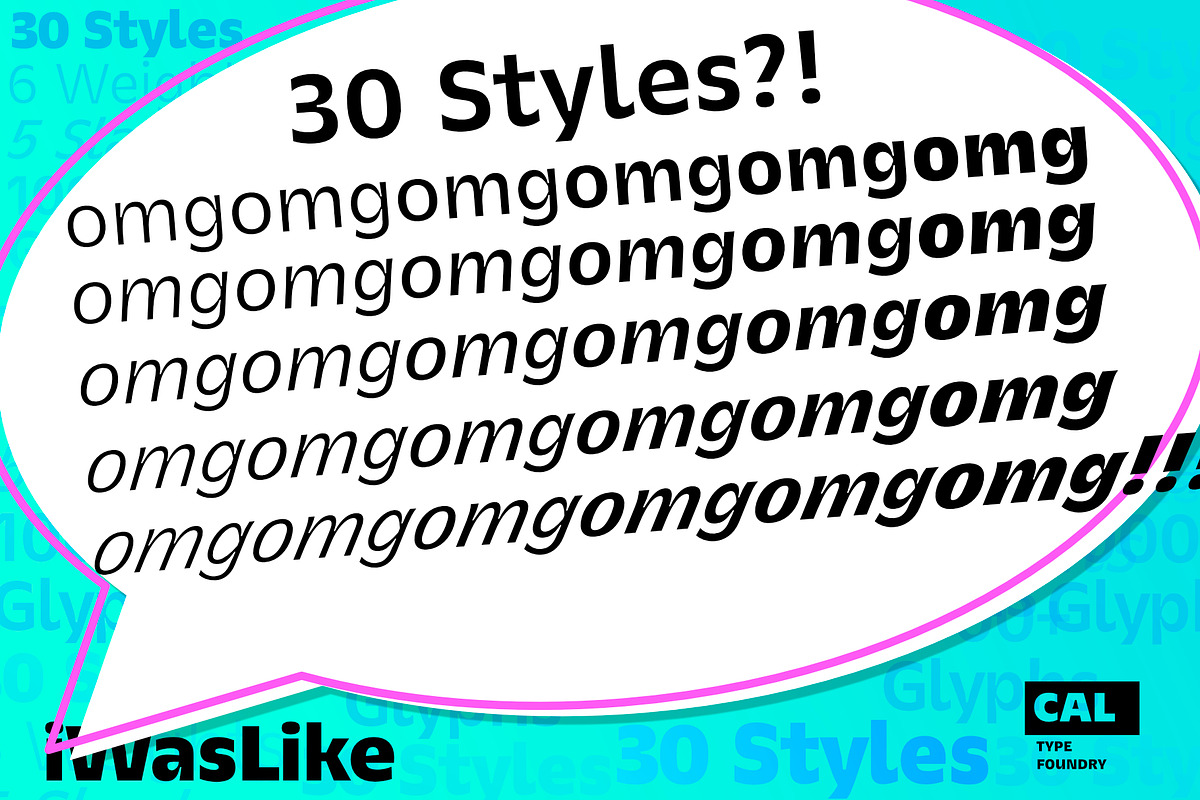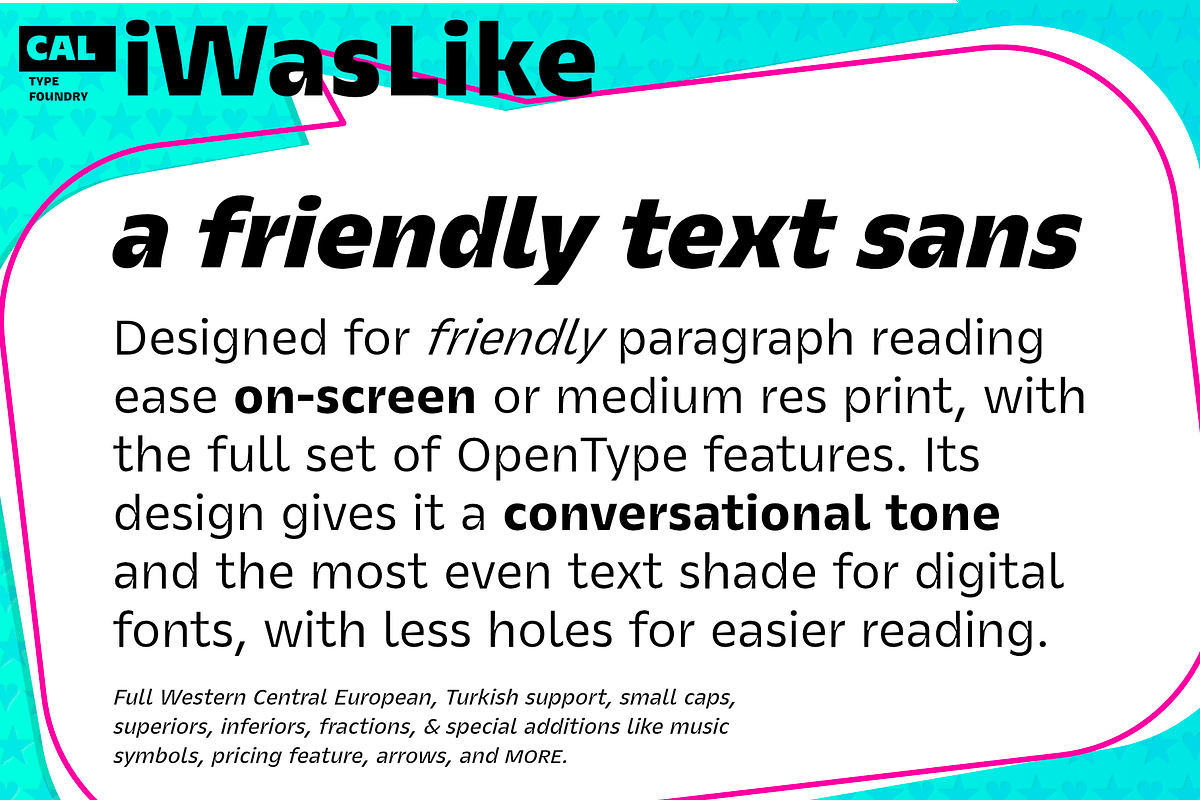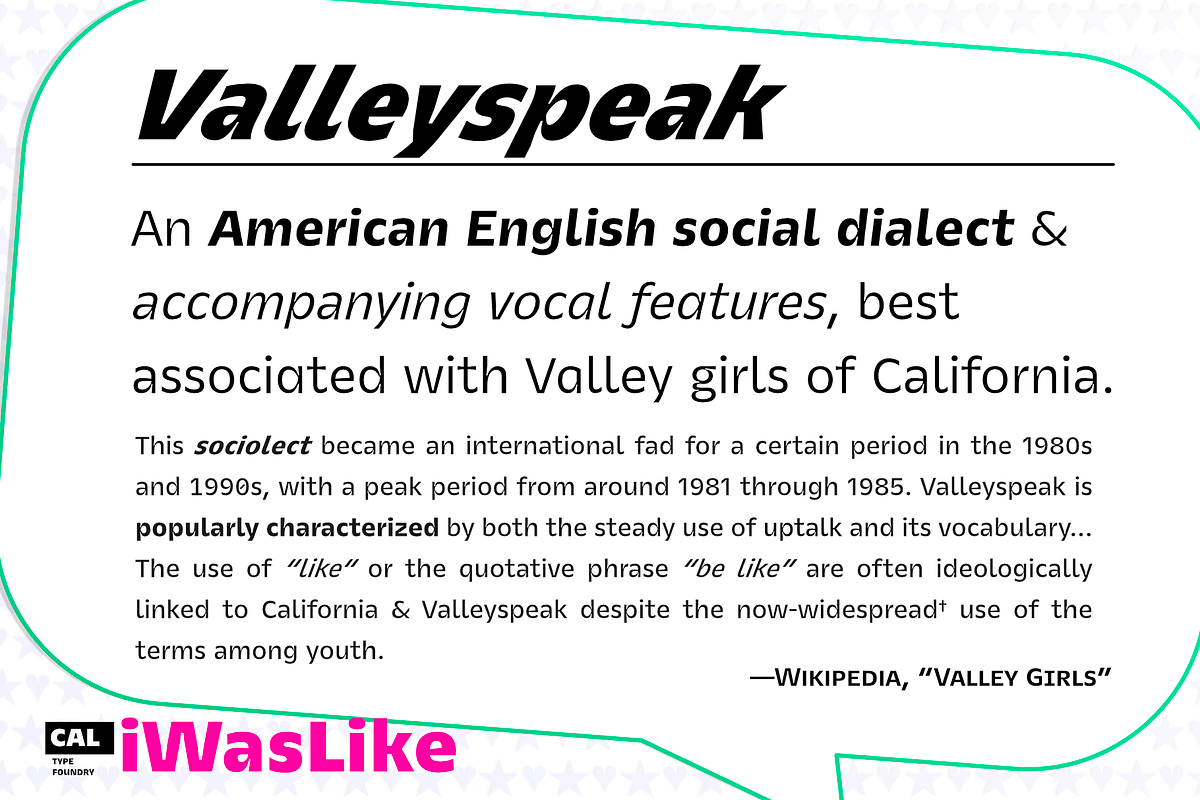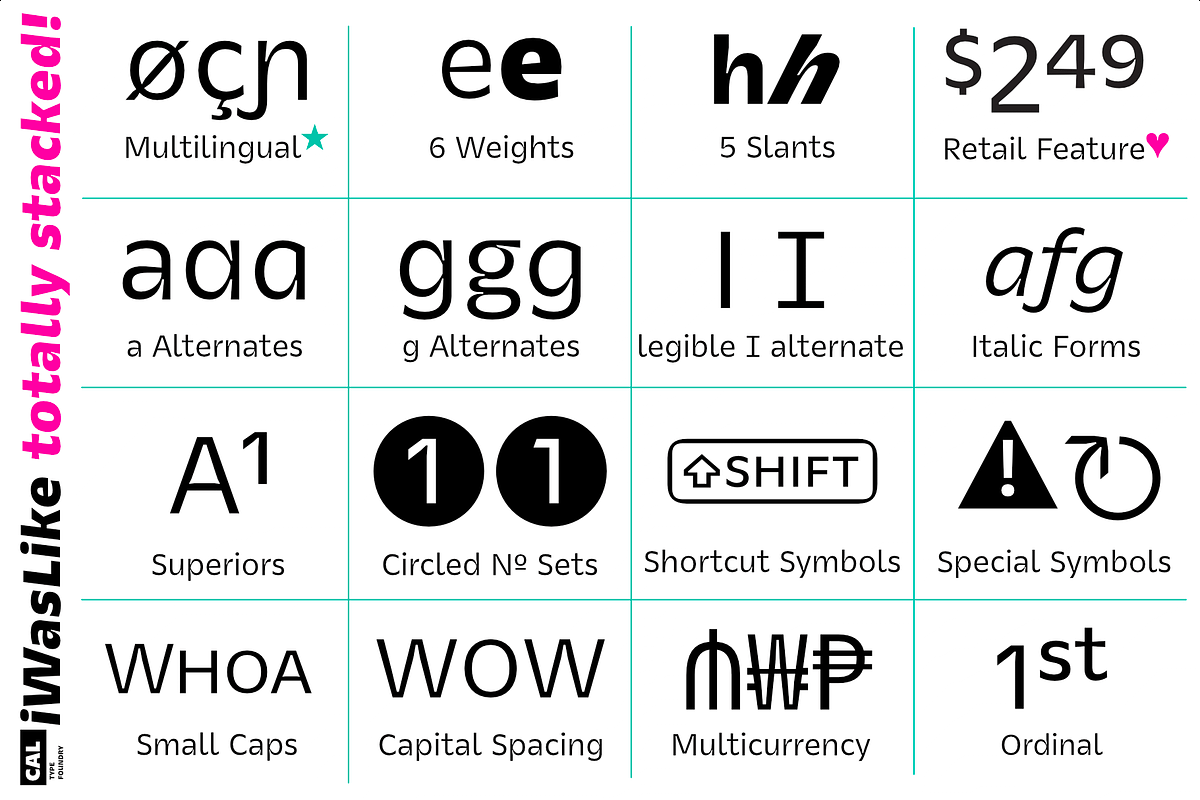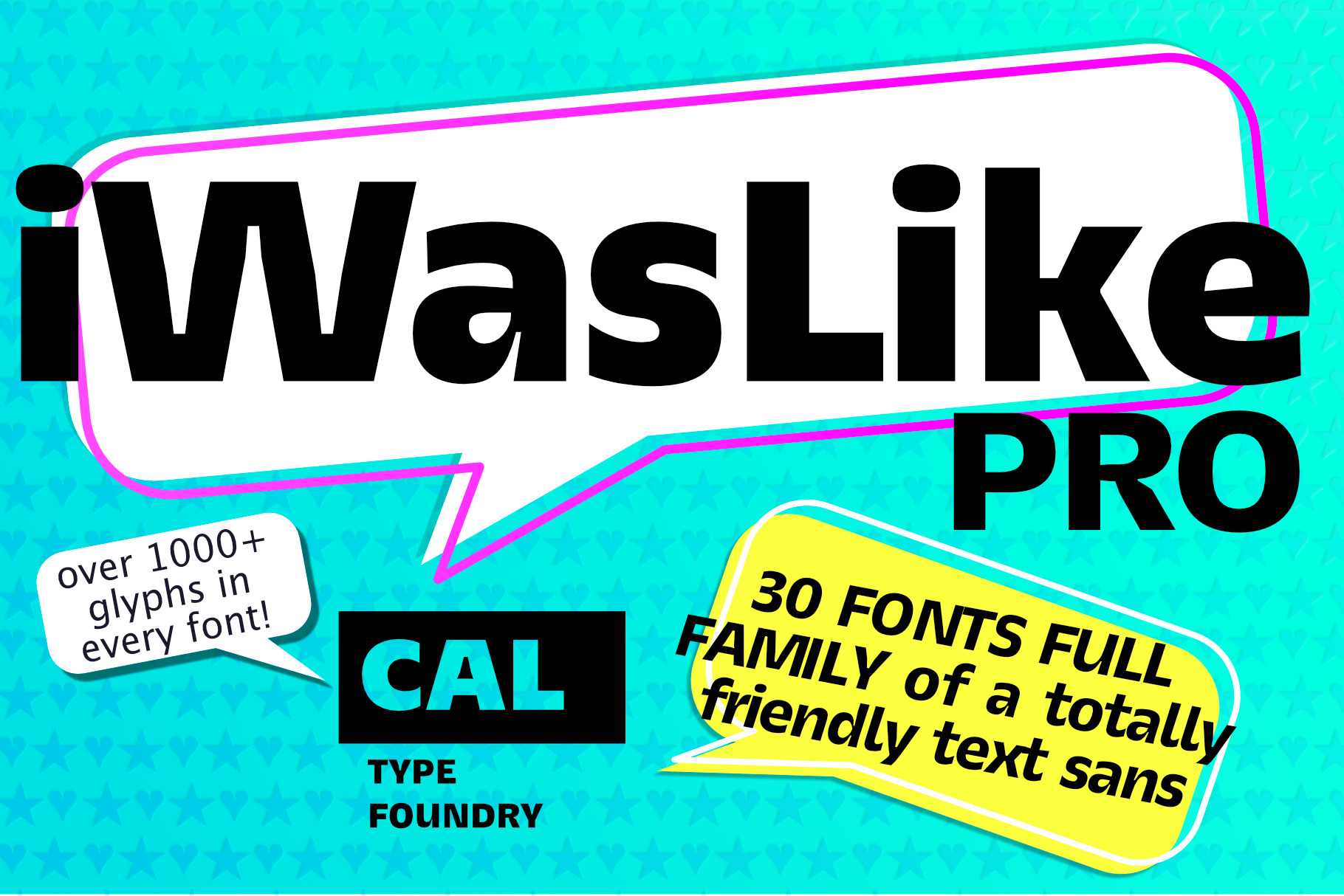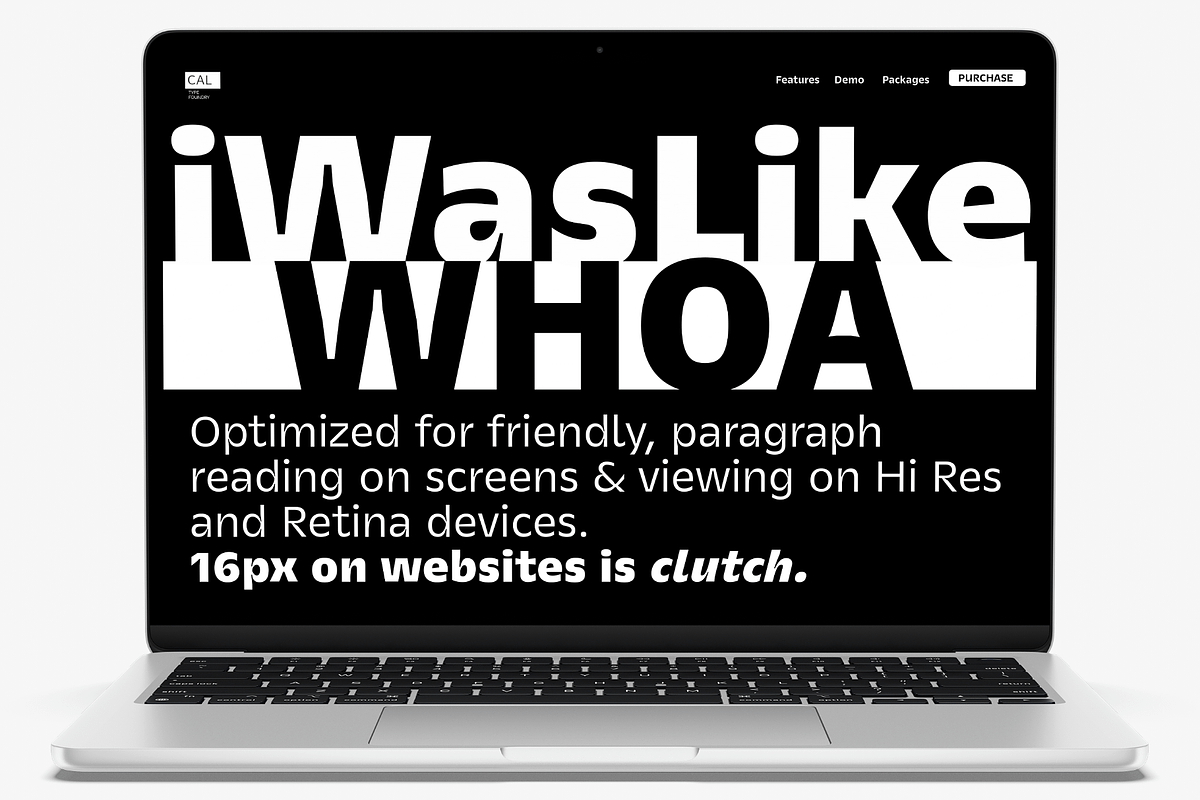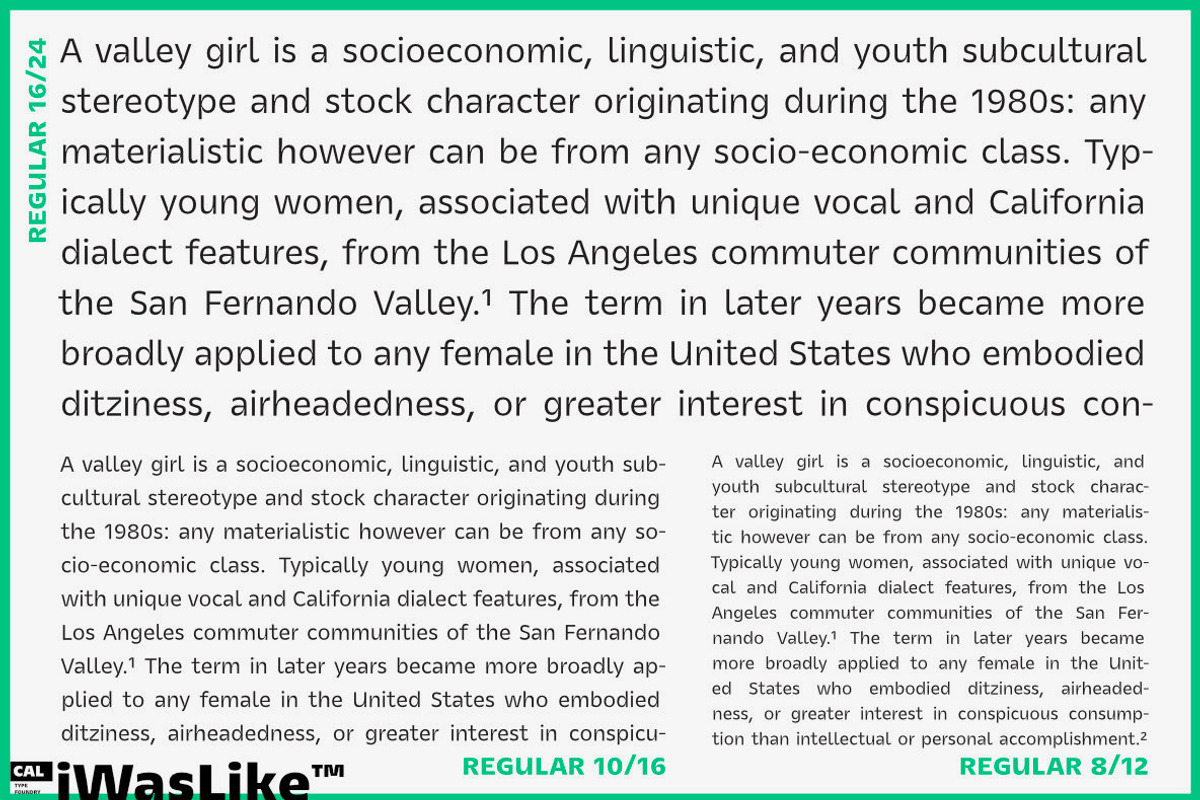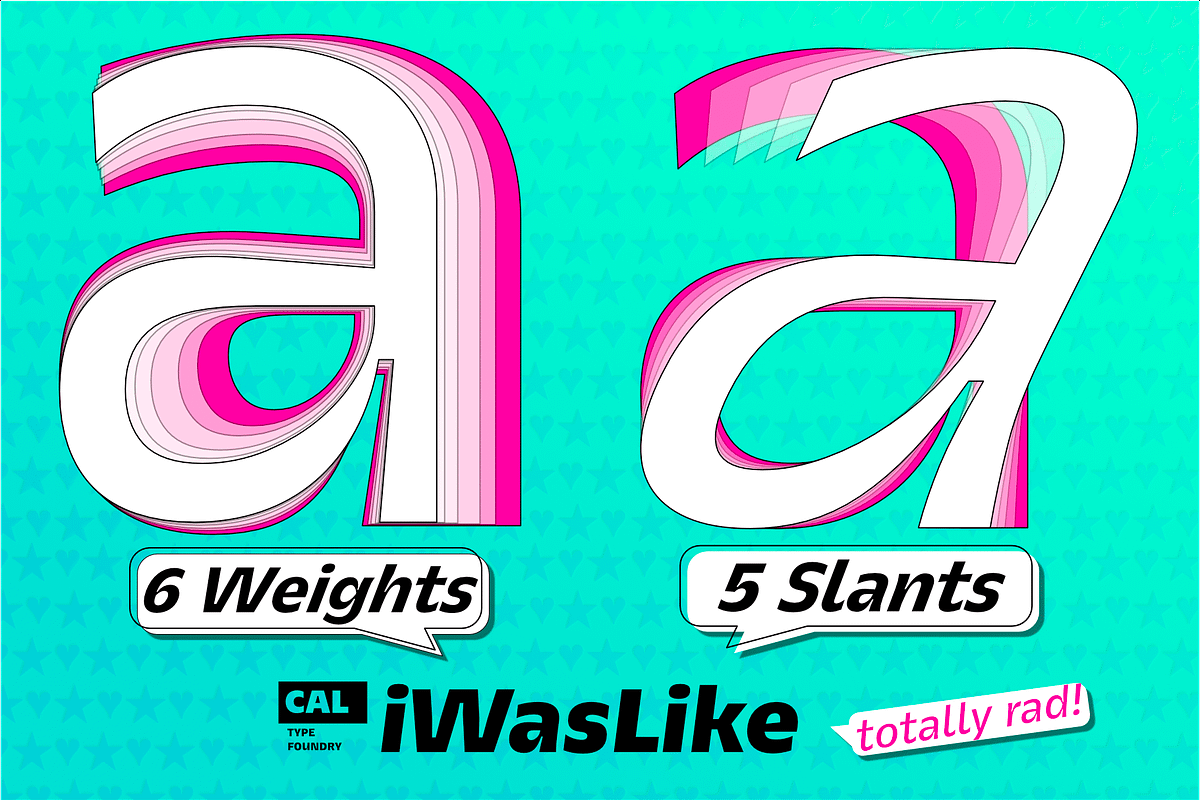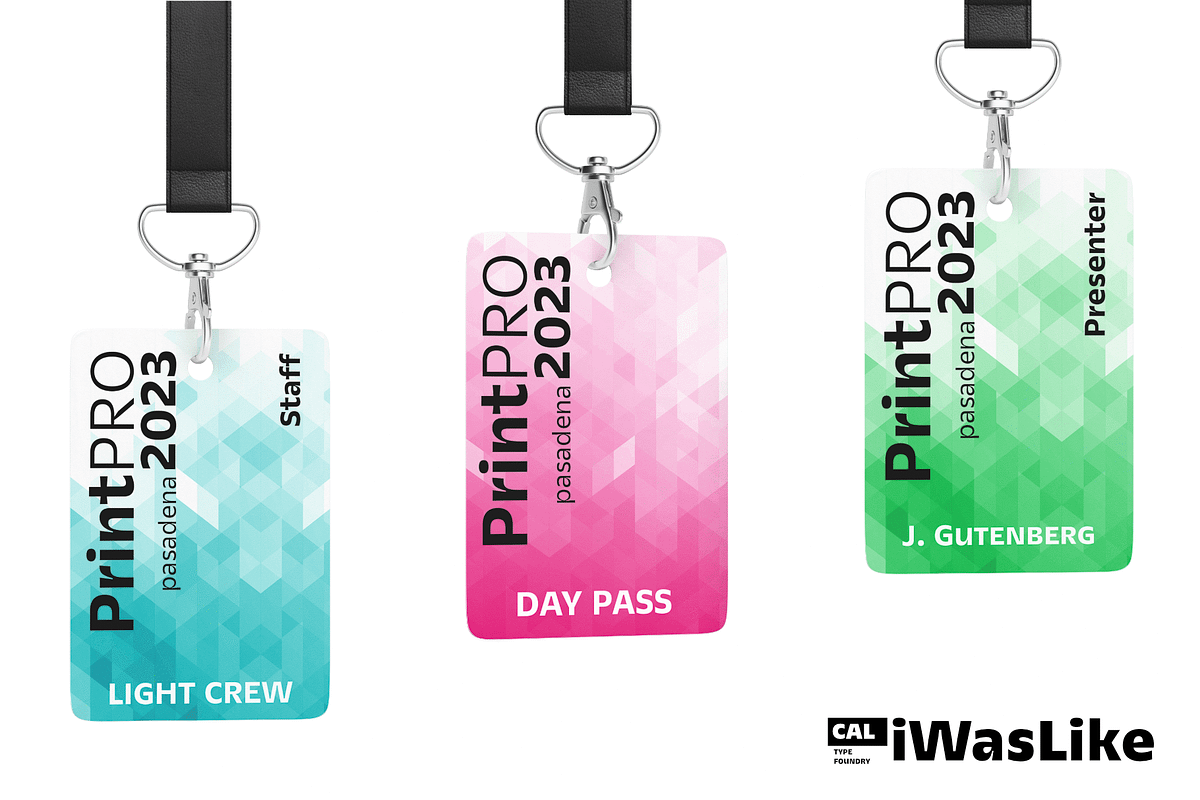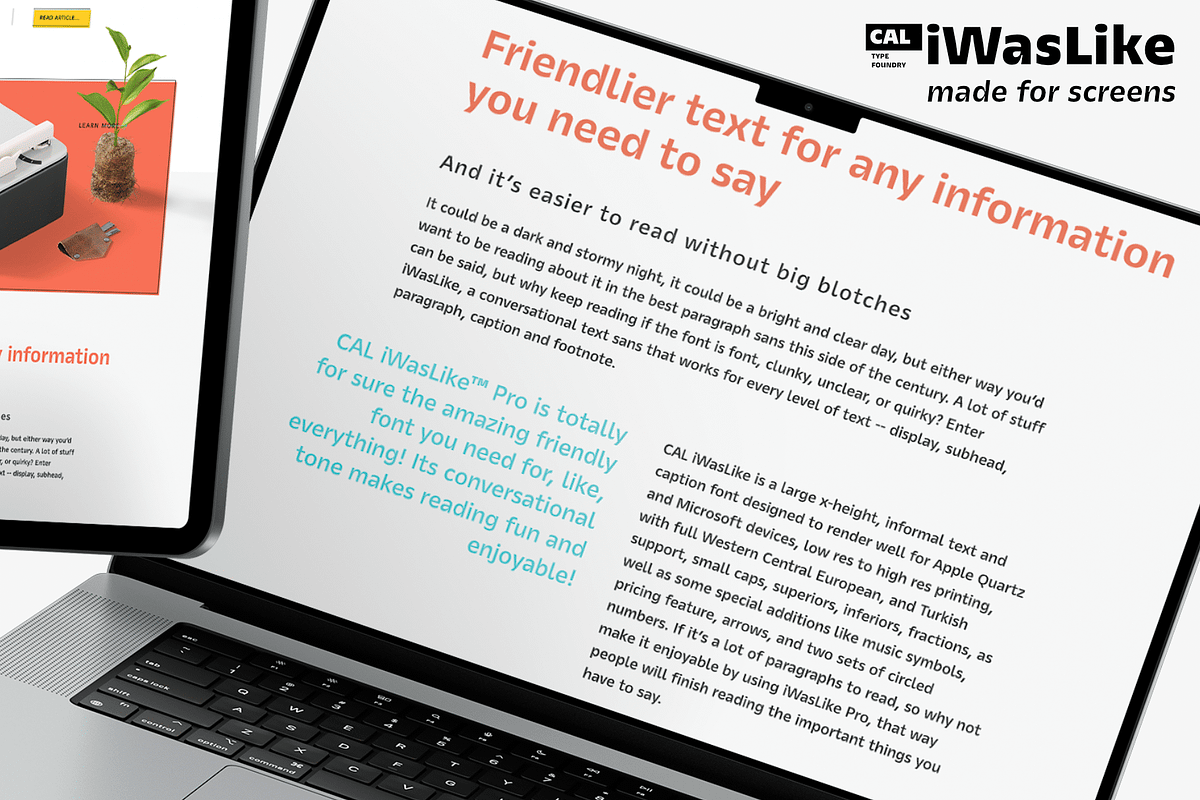
iWasLike Pro - 30 FONTS FULL FAMILY
CAL iWasLike™ Pro is totally for sure the amazing friendly font you need for, like, everything! Its conversational tone makes reading fun and enjoyable!
Designed for friendly, paragraph reading ease on screen or medium res print, with the full set of OpenType features. It's design gives it the most even text shade for digital fonts, and has less holes in the text for easier reading.
iWasLike™ is a large x-height, informal text and caption font designed to render well for Apple Quartz and Microsoft devices, low res to high res printing, with full Western Central European, and Turkish support, small caps, superiors, inferiors, fractions, as well as some special additions like music symbols, pricing feature, arrows, and two sets of circled numbers.